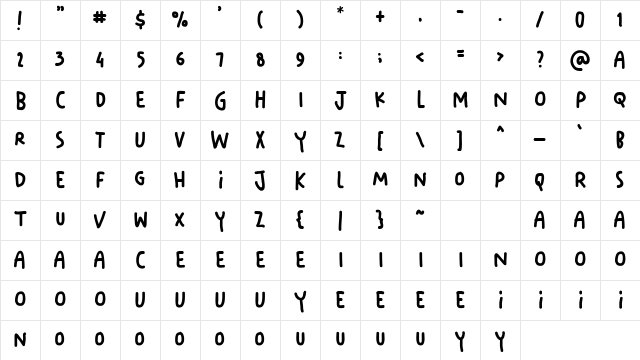
Your Doodle Font Regular
Foundry: TKK Std
Designer: Sahirul
Complete Your Doodle Font Regular glyph index. Displaying only characters natively supported by Your Doodle Font Regular font.
Design Context for Your Doodle Font
Your Doodle Font is a composed and adaptable typeface that performs quietly and consistently across a wide range of design contexts.